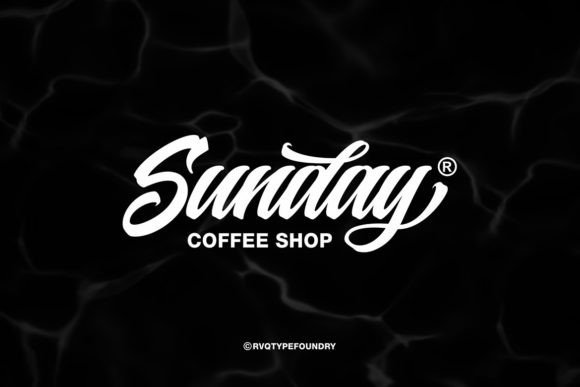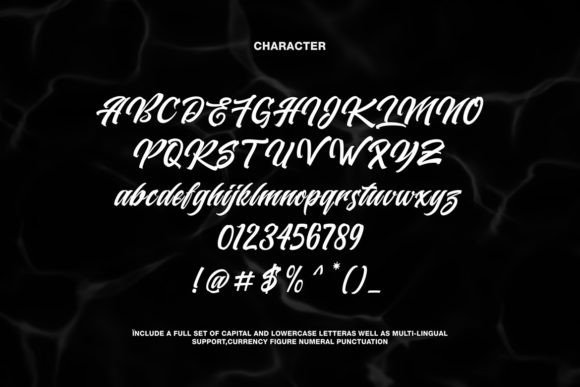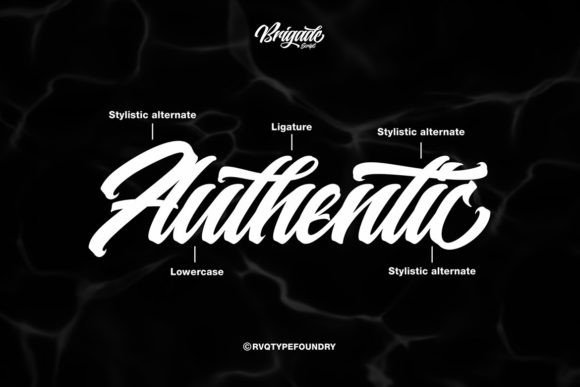
Brigade Script Font
The Brigade script is a new font script hand-lettering with a classy, elegant, and vintage feel character set. To create the beautiful combination, just mix the uppercase and lowercase then mix with the alternative glyphs. The Brigade script font includes a full set of capital and lowercase letters, as well as multi-lingual support, currency figures, numerals, ligature, punctuation & some extra glyphs.